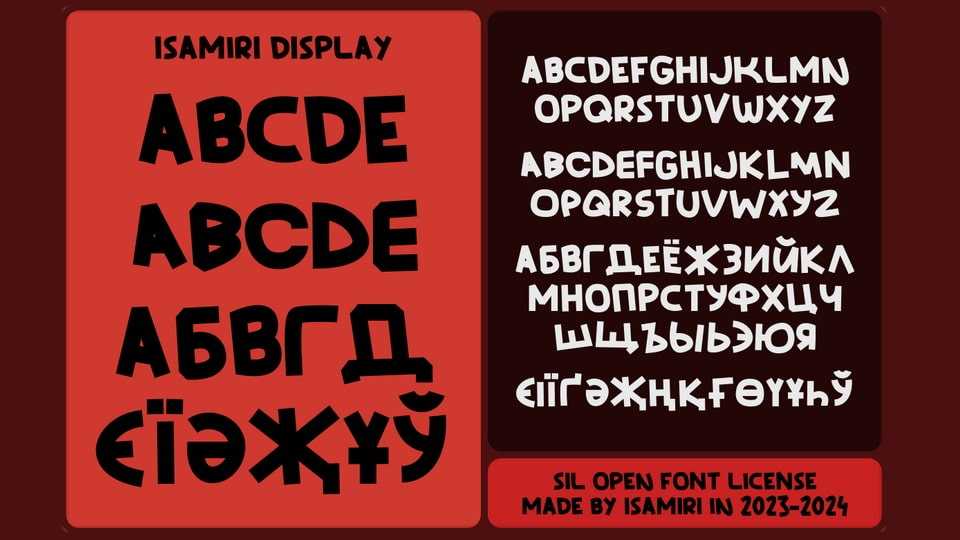
IsamiRi Display Font › Fontesk
Download IsamiRi Display font, a delightful and whimsical display typeface that adds a playful touch to your designs. This cartoonish font exudes a lighthearted energy with its exaggerated curves, bouncy baselines, and quirky style.